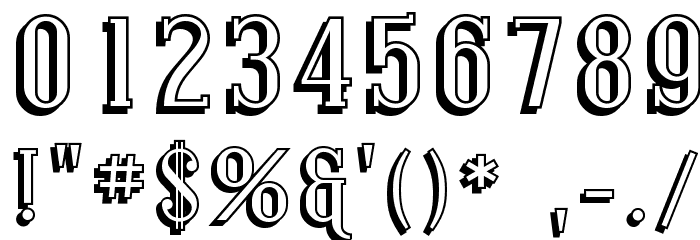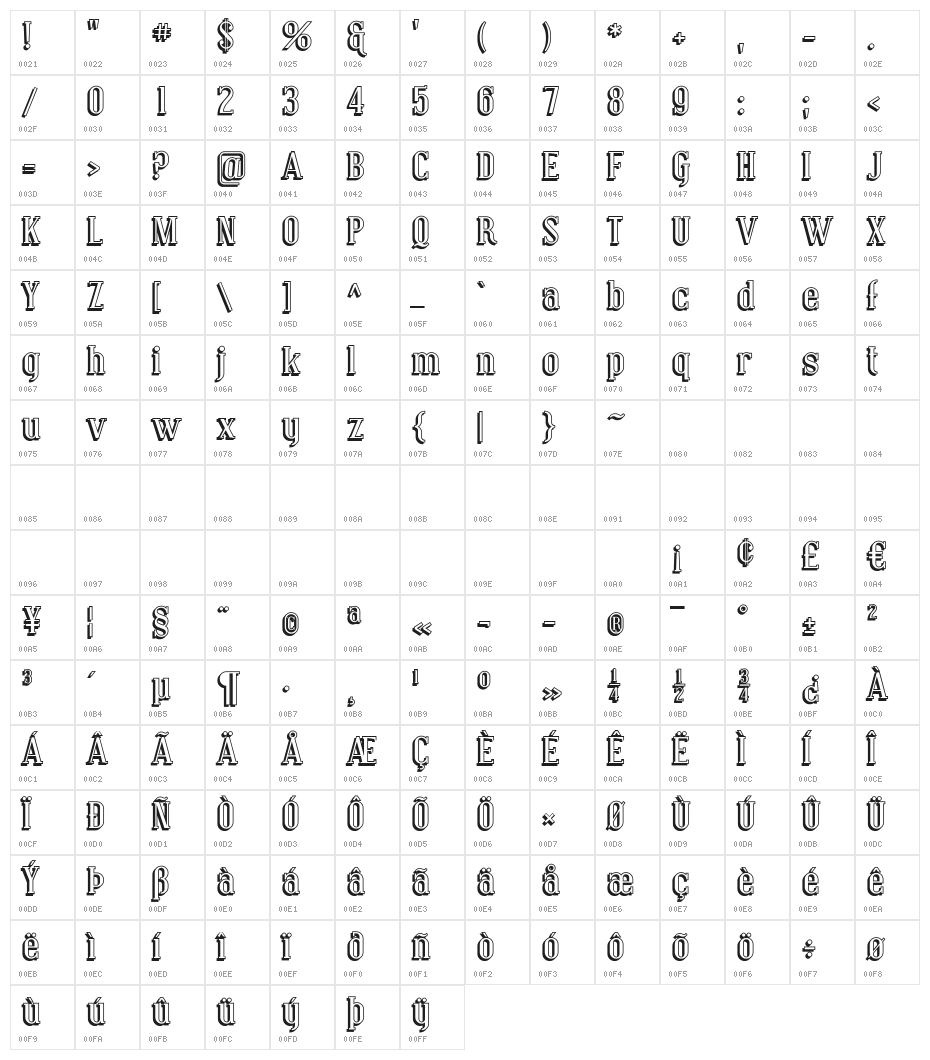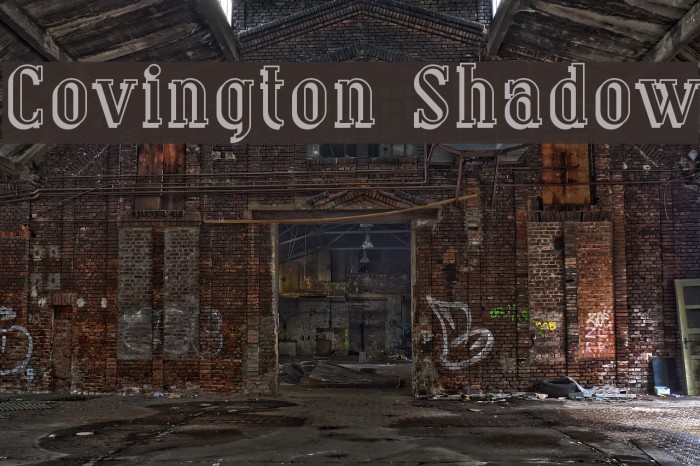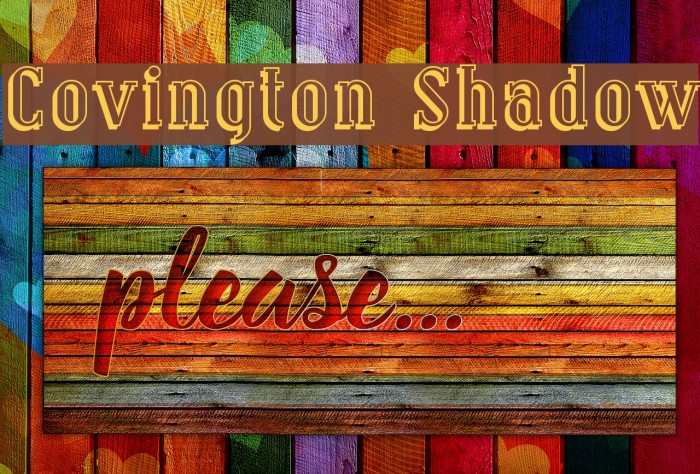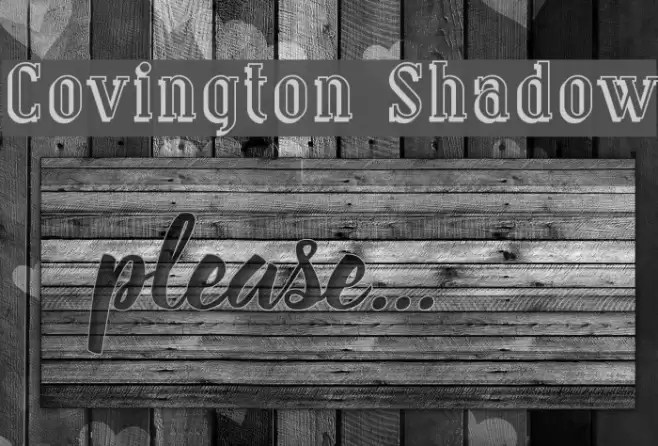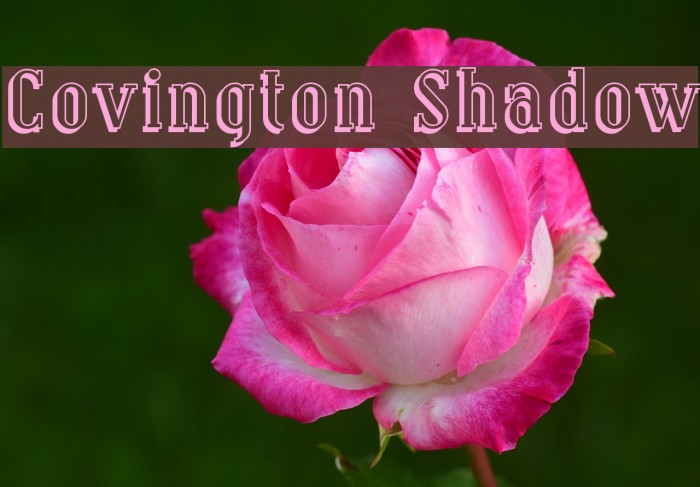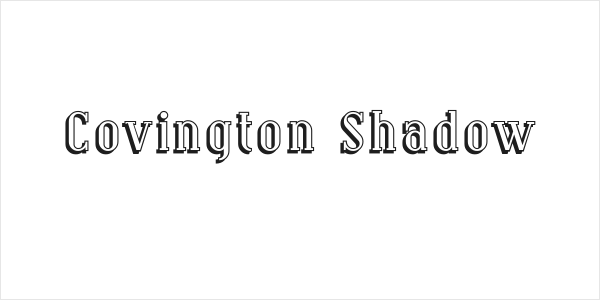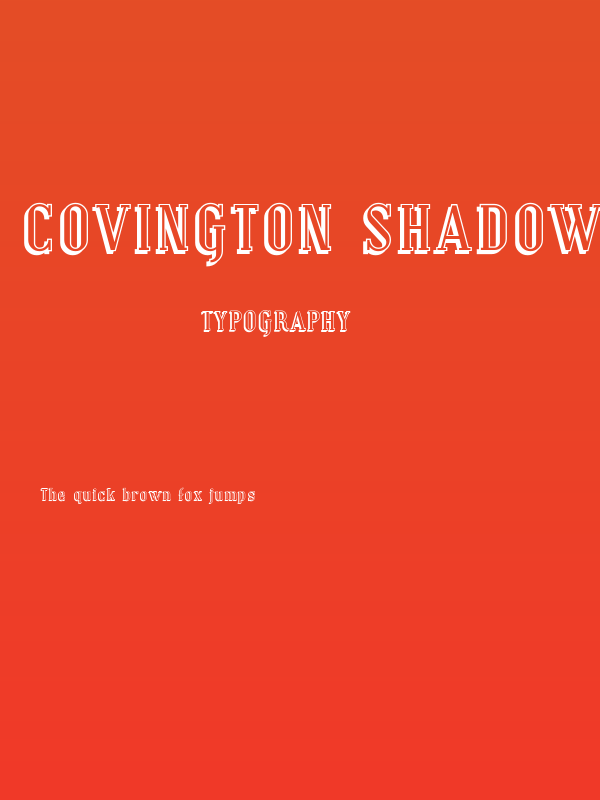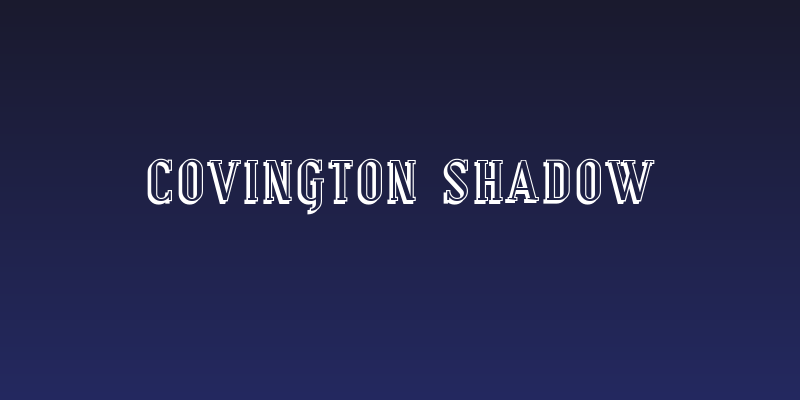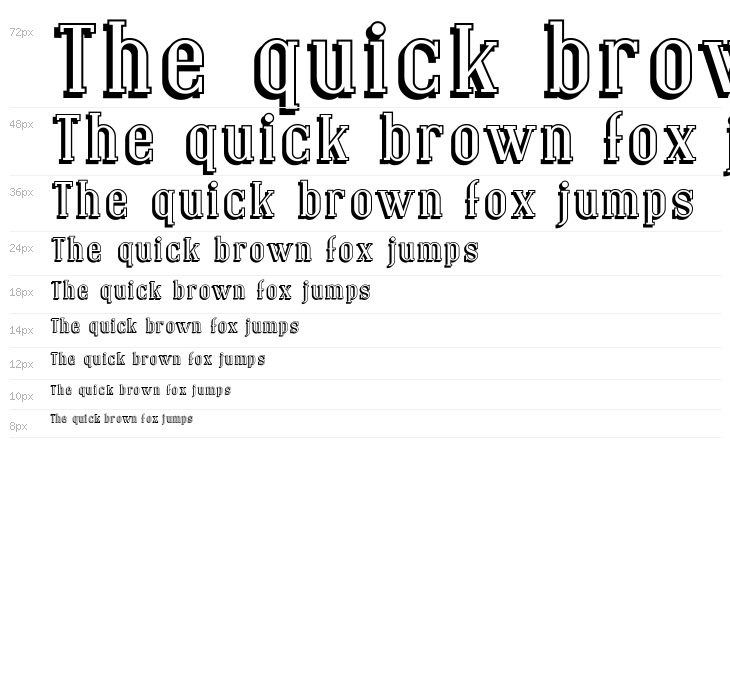
Covington Shadow Font
Covington Shadow Description
This font features a bold and striking design with a shadow effect that gives it a three-dimensional appearance. The uppercase and lowercase letters are well-defined, with a consistent thickness that enhances readability. The numbers and special characters maintain the same stylistic elements, ensuring uniformity across all glyphs. The shadow effect adds depth and a sense of movement, making it ideal for eye-catching designs. The font's structure is robust, with clear lines and a modern aesthetic that combines both traditional and contemporary elements.
| Proposed Projects | Ideal for posters, headlines, branding, and any design requiring a bold statement. |